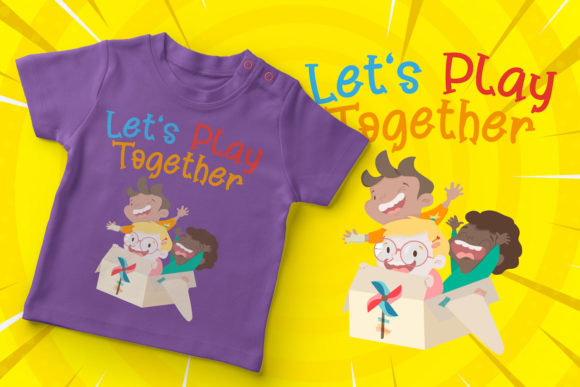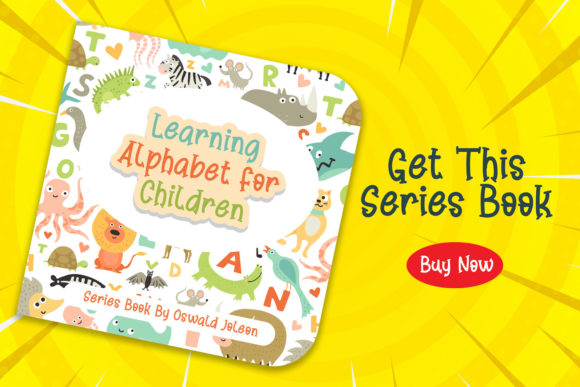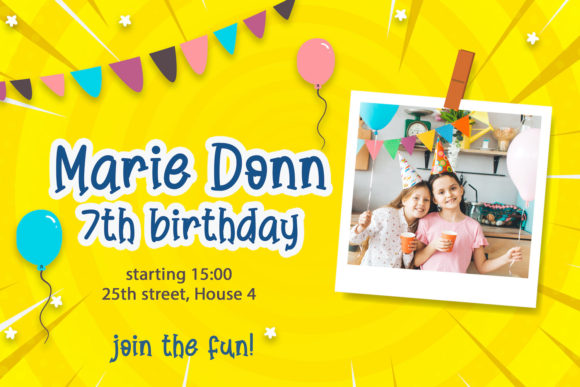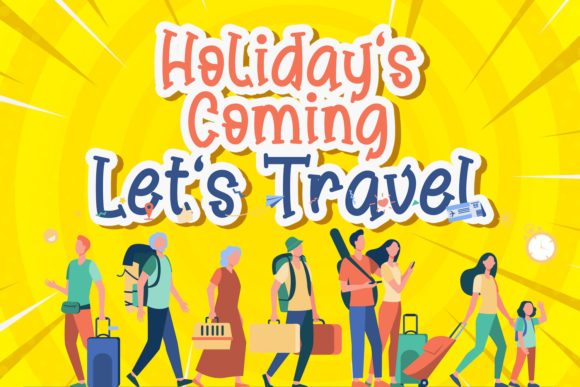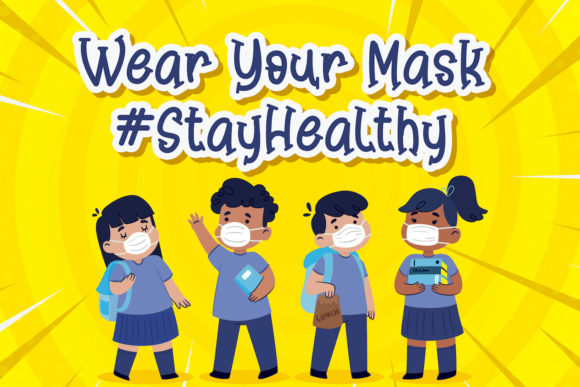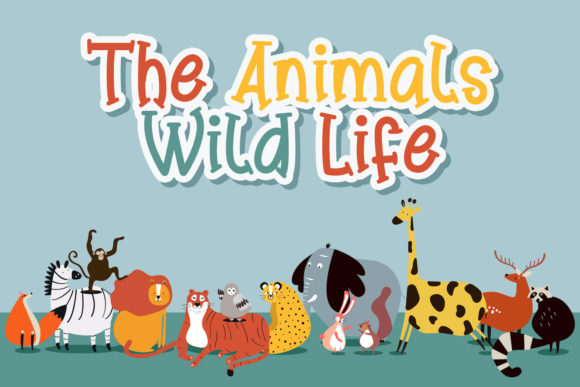
Introducing Angkise Font: A Playful and Neat Display Font for Creative Designs
Are you tired of using the same old fonts for your designs? Look no further! Angkise Font is a fresh and exciting addition to the world of typography. This playful and neat display font is perfect for informal or casual designs, and its endless variations will keep you creative and inspired.
What is Angkise Font?
Angkise Font is a display font designed to add a touch of playfulness and whimsy to your designs. Its unique and neat style makes it perfect for a variety of creative projects, from social media graphics to posters, flyers, and more. Whether you’re a designer, crafter, or DIY enthusiast, Angkise Font is a great addition to your font collection.
Key Features of Angkise Font
- Playful and Neat Style: Angkise Font boasts a unique and refreshing style that’s perfect for informal designs.
- Endless Variations: With Angkise Font, you can experiment with different combinations of letters, words, and phrases to create unique and eye-catching designs.
- Easy to Read: Despite its playful style, Angkise Font is easy to read, making it perfect for designs that require a clear message.
- Versatile: Angkise Font can be used for a wide range of designs, from social media graphics to posters, flyers, and more.
Uses of Angkise Font
Angkise Font is perfect for a variety of creative projects, including:
- Social Media Graphics: Use Angkise Font to create eye-catching social media graphics that will make your followers smile.
- Posters and Flyers: Angkise Font is perfect for creating posters and flyers for events, promotions, or announcements.
- Crafting and DIY Projects: Add a personal touch to your crafting and DIY projects with Angkise Font.
- Wedding and Party Decor: Use Angkise Font to create beautiful wedding and party decor, such as invitations, banners, and signs.
Tips for Using Angkise Font
Here are some tips for getting the most out of Angkise Font:
- Experiment with Different Combinations: Don’t be afraid to try out different combinations of letters, words, and phrases to create unique designs.
- Play with Colors and Textures: Add depth and interest to your designs by experimenting with different colors and textures.
- Keep it Simple: Don’t overcomplicate your designs. Keep your message clear and concise.